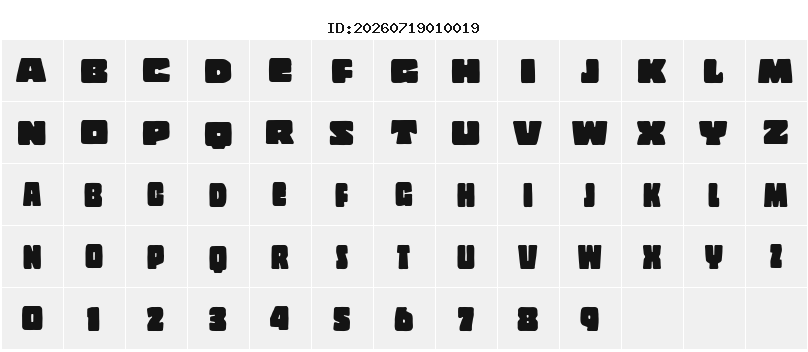
Copal Preview
• Font Name: Copal
• Full Font Name: Copal Solid
• PostScript Name: Copal-Solid
About Copal.ttf
Copal.ttf is a modern, elegant sans-serif font designed for ultimate readability and visual harmony. Perfect for branding, headlines, web design, and print materials.